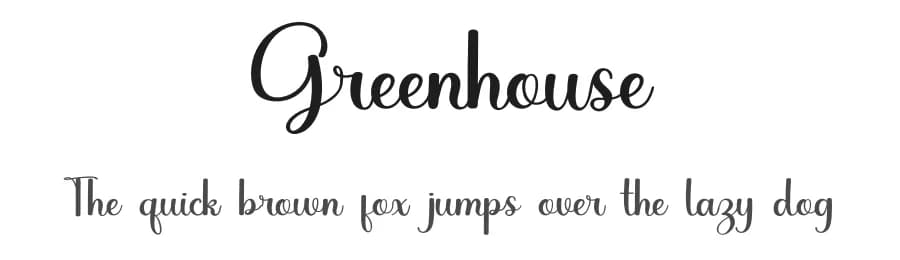
About Greenhouse Font
Greenhouse is a lovely and round-lettered handwritten font. It is the best choice for creating eye catching logos, branding and quotes. Every letter has a unique and beautiful touch, which will make your design come alive!
Greenhouse Font is a script font that shines as a display or heading face. Pair it with a clean sans-serif or serif font for body text β the contrast creates a clear hierarchy while the two styles stay balanced and easy to read.